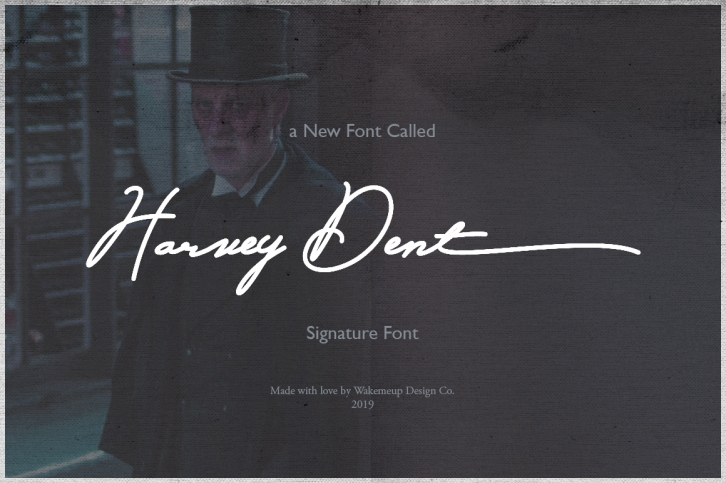
Harvey Dent Signature is a beautiful font that was designed by Alterdeco Design Studio. It's a great choice for designers and creatives who need such a font. It was released on April 19, 2019 and the file size is 7.59 MB. Harvey Dent Signature may give a more youthful, expressive and casual look to your project. It is a very beautiful, refined, elegant, and high-quality font.